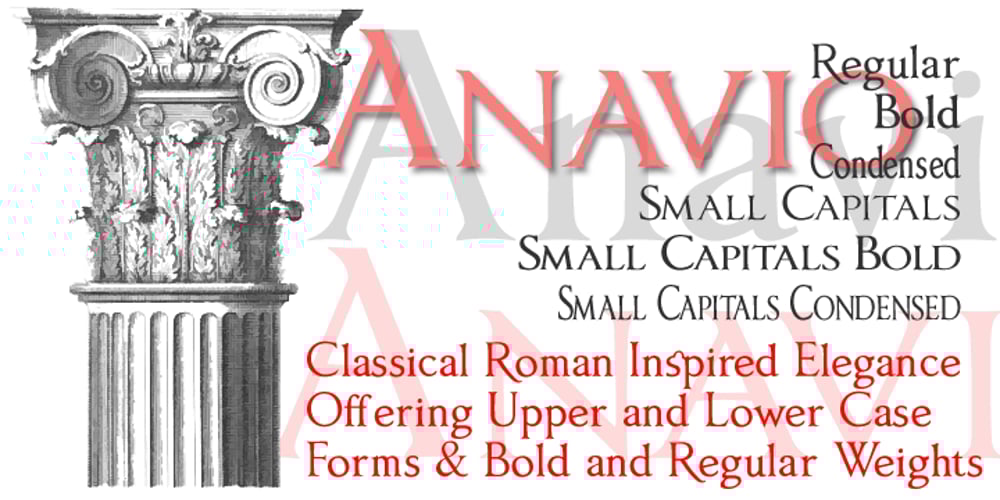
Anavio
Anavio font
Anavio Font Family was designed by Paul James Lloyd and published by Greater Albion Typefounders. Anavio contains 6 styles and family package options. Anavio is named in honor of the ancient Roman name of an English Derbyshire town. Anavio is a classically inspired family of Roman faces, emphasizing simplicity of form and elegance. Regular and Bold weights are offered, along with condensed forms. Anavio is offered in both upper and lower case and small capitals faces. Its simple lines are immediately legible, lending it to both text and display uses. A range of ligatures, both standard and discretionary, are included as are stylistic alternates and two styles of numerals. Use Anavio to lend that indefinable air of elegance to your next project.